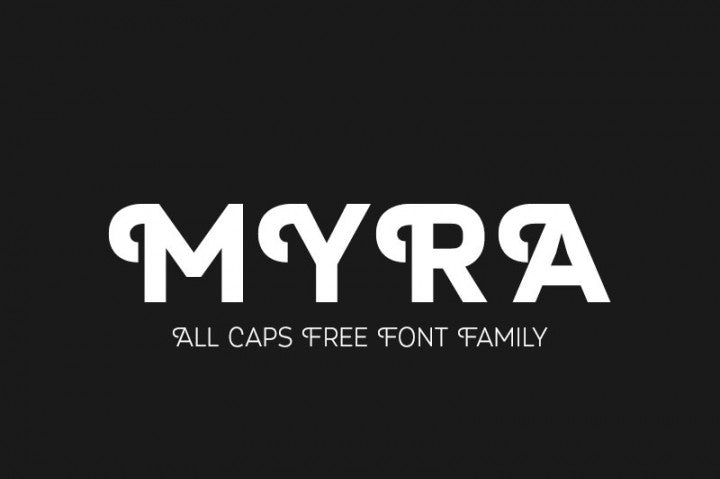
Introducing you to the absolutely beautiful free myra font. This is a downloadable font file brought to you by The Hungry JPEG. You can create a professional designs with this fancy font.